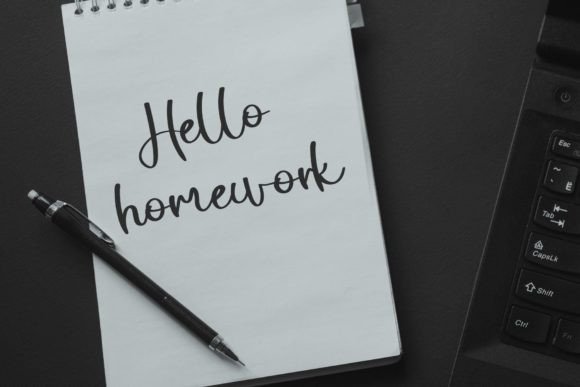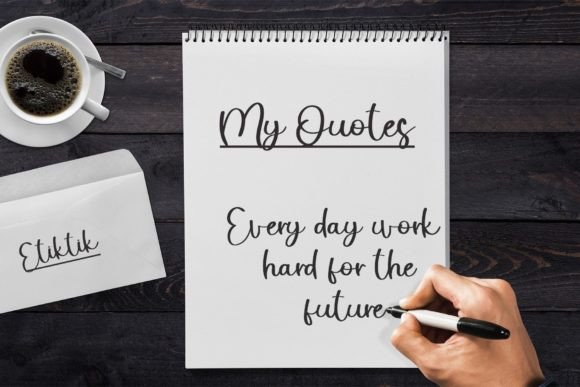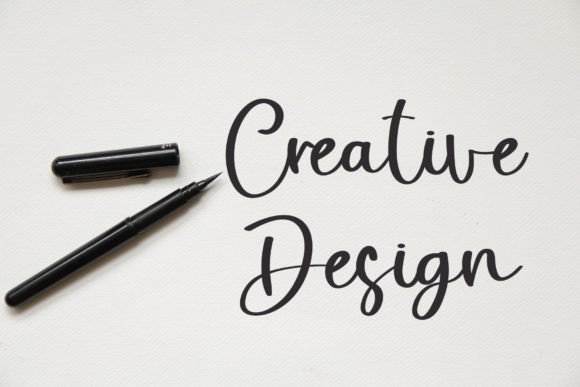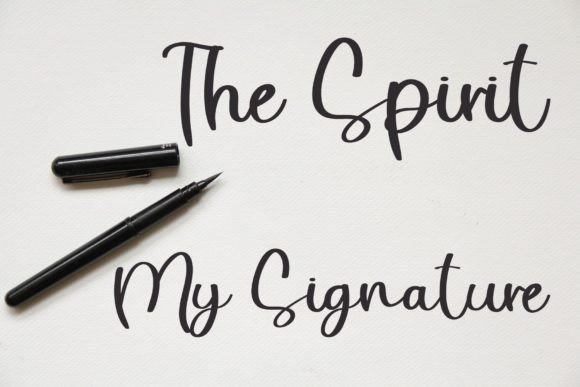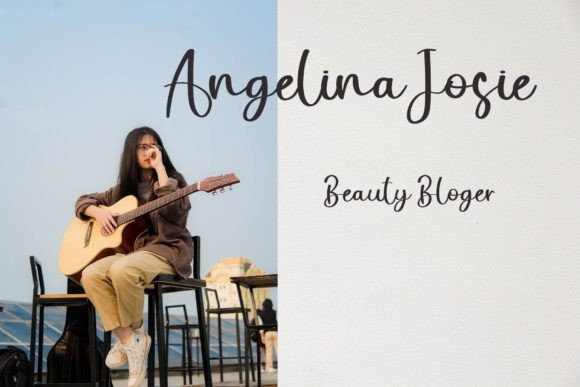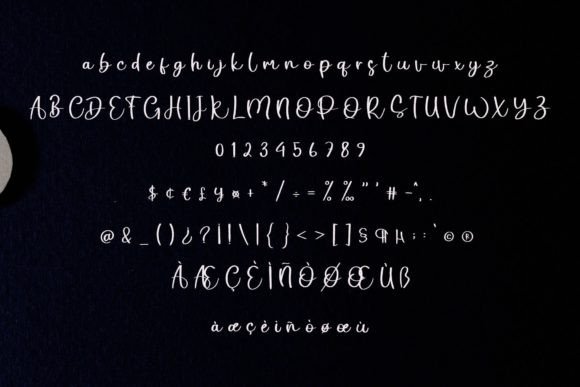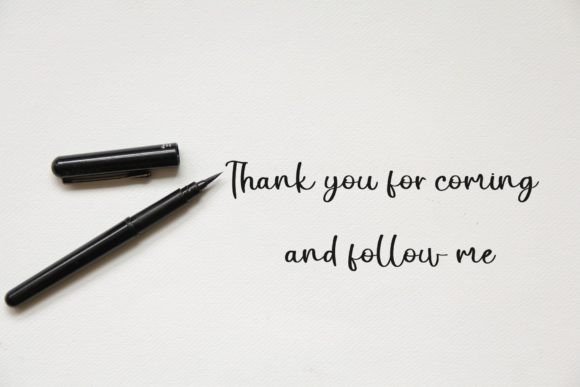
Holistic Signature Font
About Holistic Signature Font
“Holistic Signature” is a romantic and sweet calligraphy script font that unfolds like a dance along the baseline. With characters that exude elegance and charm, this font adds a luxurious spark to any creative design or project you wish to develop. The script style of “Holistic Signature” creates a romantic and graceful atmosphere, making it an ideal choice for a variety of applications.
The flowing characters of “Holistic Signature” give it a distinct and sophisticated appearance. Each letter seems to dance gracefully along the baseline, contributing to the font’s romantic and sweet vibe. This calligraphy script brings a touch of luxury to your designs, making it perfect for projects that demand a high level of elegance and visual appeal.
Whether you’re working on wedding invitations, branding materials, or any creative endeavor where a romantic and luxurious feel is desired, “Holistic Signature” steps in as a captivating choice. It adds a personalized and handwritten touch, making your designs stand out with a signature style that’s both charming and refined.
Picture the impact of “Holistic Signature” on your creative projects—it becomes more than just a font; it becomes a key element that elevates your designs to a new level of sophistication. Its romantic and sweet calligraphy style contributes to the overall aesthetics, creating an atmosphere of timeless beauty.
Incorporate “Holistic Signature” into your design toolkit, and watch as it infuses your projects with a luxurious spark. Whether you’re developing invitations, logos, or any other creative venture, let this font be the romantic and sweet signature that sets your designs apart.